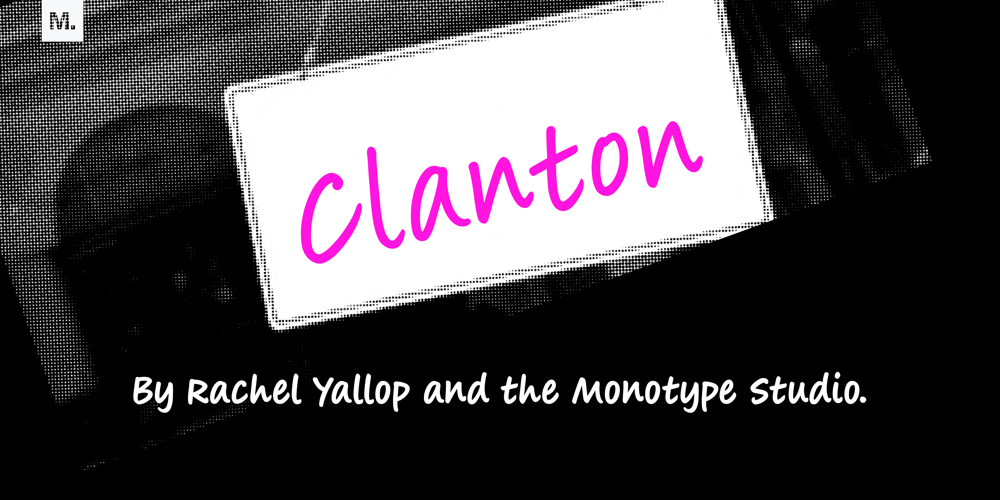
Clanton
Clanton font
Clanton Font Family was designed by Rachel Yallop and published by Monotype. Clanton contains 3 styles and family package options. Drawn with marker pens by Rachel Yallop, Clanton is imbued with a sense of simple, casual friendliness, and was created as to evoke handwriting. This solid, naturalistic font is available as a family of light, regular and bold weights, each with subtle natural differences thanks to being hand drawn for each variant.